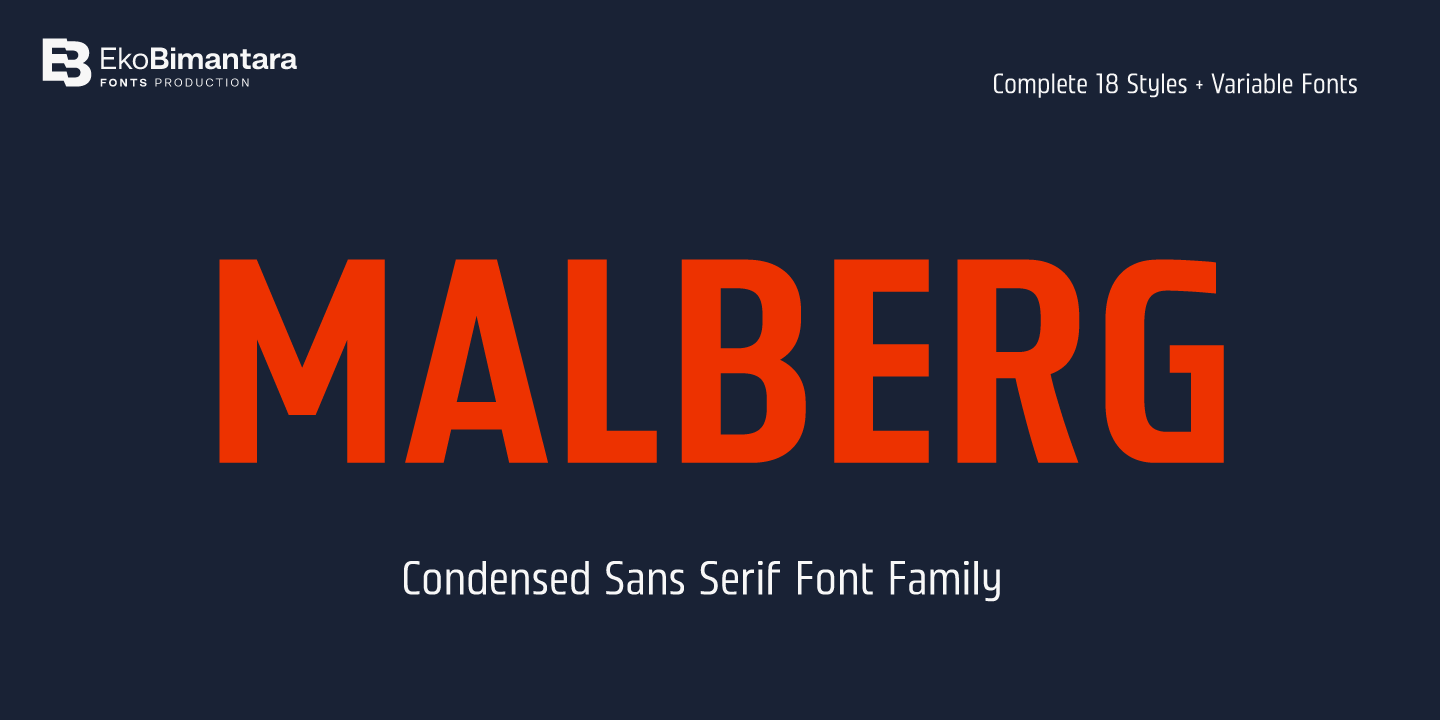
Malberg Font is perfect for mountain resort branding, alpine adventure tourism, ski lodge signage, hiking equipment advertising, mountaineering company logos, outdoor gear packaging, wilderness expedition promotions, rugged cabin retreat marketing, climbing gear catalogs, and peak performance athletic branding. Its majestic mountain character makes it ideal for projects requiring alpine strength and outdoor adventure authenticity.
What makes Malberg Font exciting is its commanding embodiment of mountain majesty and alpine adventure with bold letterforms and mountainous characteristics that capture the essence of peak performance and outdoor expedition excellence. The font features strong angular cuts, elevation-inspired proportions, and rugged character construction that create authentic mountain atmosphere and alpine appeal. Its powerful personality brings strength and adventure to contemporary designs while maintaining the clarity essential for outdoor communications and adventure sports presentations. The carefully crafted mountainous elements ensure visual prominence while preserving the distinctive character that embodies the essence of alpine excellence and mountain adventure.
Malberg Font comes in multiple alpine variations including Light, Regular, Medium, Bold, and Peak styles. Each family member maintains the distinctive mountain character while offering comprehensive flexibility for outdoor typography and alpine brand system development. The complete font family includes alternate characters, mountain symbols, and rugged decorative elements that provide extensive tools for creating immersive mountain design experiences and authentic alpine brand storytelling.
Whether you're developing outdoor adventure brands, mountain tourism companies, or alpine sports projects, Malberg Font Free Download provides the majestic strength needed to communicate with outdoor enthusiasts and mountain adventurers who appreciate alpine excellence and wilderness authenticity. The font's commanding appeal resonates with climbers, skiers, and outdoor professionals seeking authentic mountain credibility and alpine sophistication. Its comprehensive character set includes mountain symbols and outdoor marks, making it perfect for creating complete alpine brand systems and memorable mountain storytelling across diverse outdoor applications and adventure-focused design projects that celebrate mountain culture and alpine excellence.